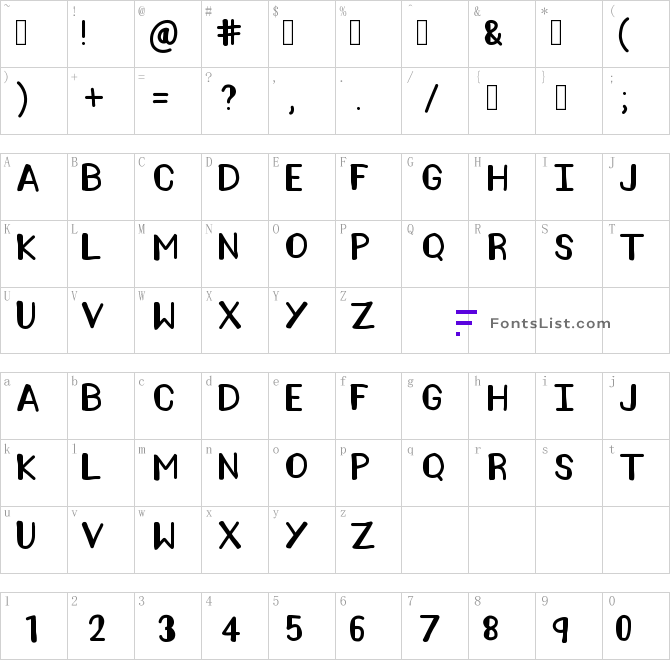
- Font Name:AMELIA POND
AMELIA-POND.ttf is a very beautiful artistic font, AMELIA-POND.ttf is widely used in the design and printing of various books and pictures,AMELIA-POND.ttf has a strong visual impact,AMELIA-POND.ttf is a commonly used font in newspapers, magazines and books, and is used in posters, e-commerce Poster design, store design, logo design, font design and other fields.AMELIA-POND.